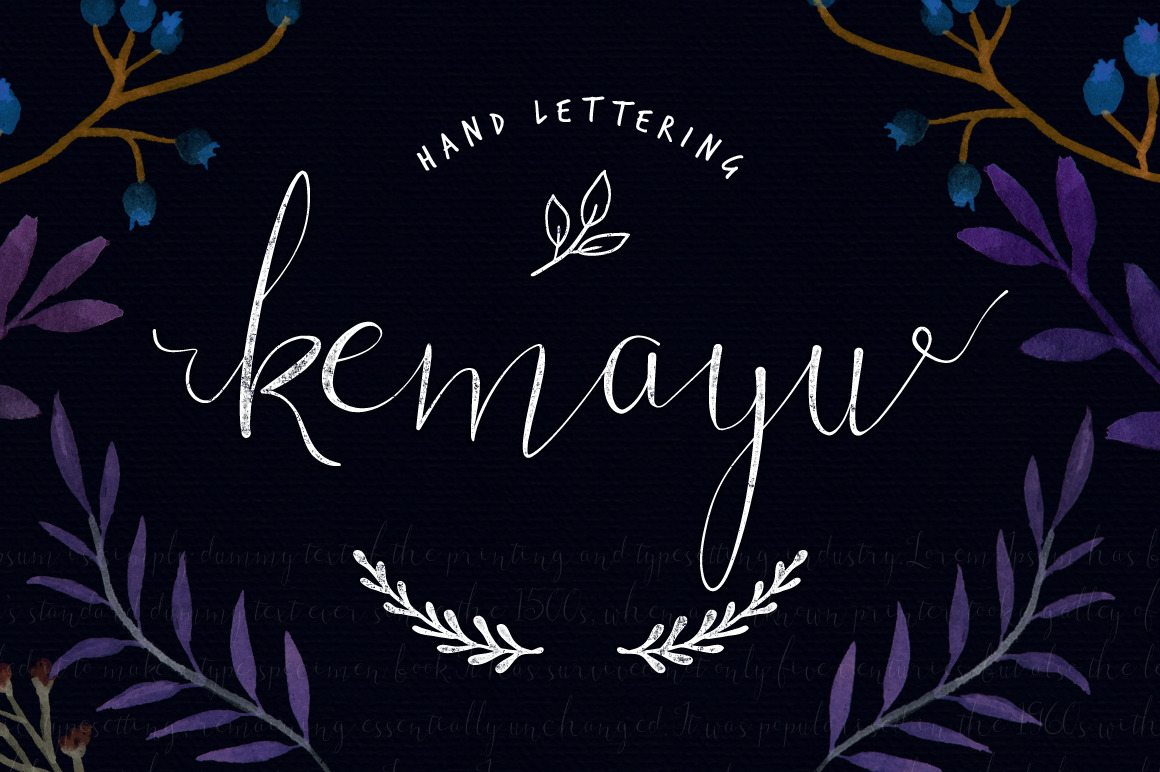
Kemayu font in the category of a script font that uses handwriting technique using artpen and digital experience to the process. Kemayu Font suitable for desing that have fun concept and not so serious. To write a paragraph using Kemayu font very nice looks, text remains legible even if using size 8 pt.
For those of you who like to make or have a project with concept design fun and not so serious Kemayu font is suitable for your font collection. Besides you get the font you also get a bonus of hand drawing vector (can be seen in the last preview)